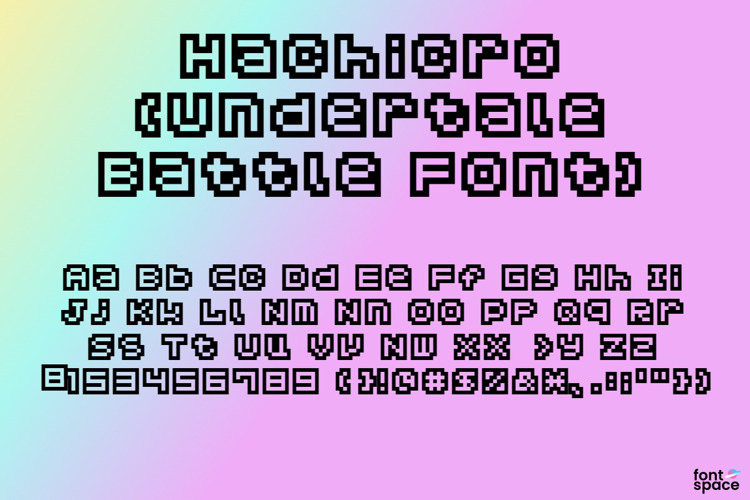
Hachicro Undertale Battle Font
This is the font that appears when you hit or attempt to hit an Undertale character in battle. you will see "MISS" or "1637" depending on how many points you scored by hitting the character.
Not sure if this is still being updated, but just wanted to call out that the capital 'N' seems to be substituted instead of a 'M' and 'W', and the #2 is also missing (here still seen mirroring the '5')
This font looks good but the "2" is in reverse, it is the same as "5" atm. Also the "0" is a bit off